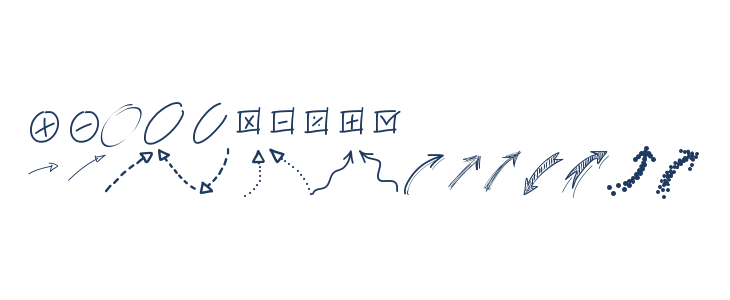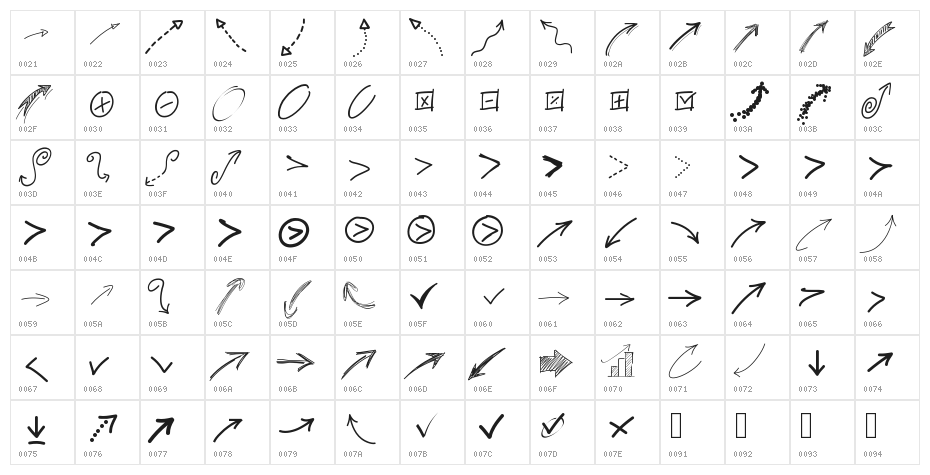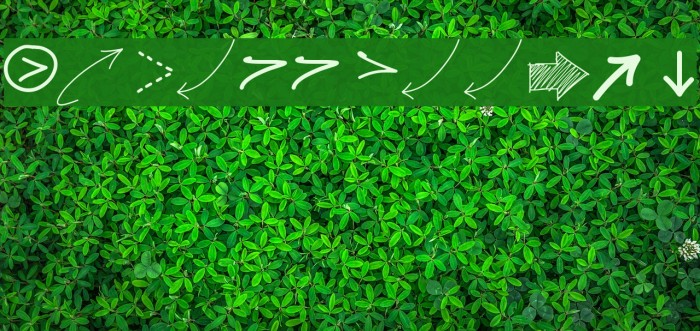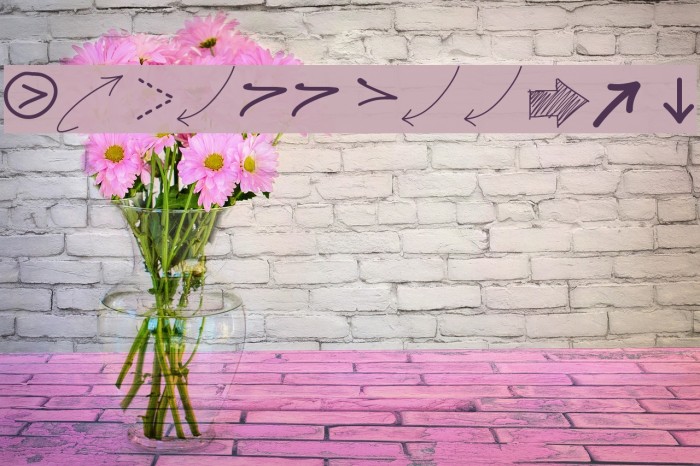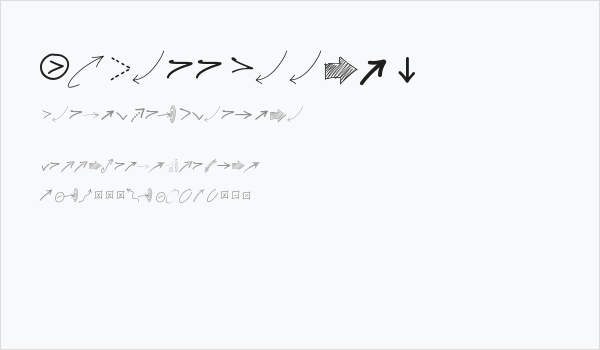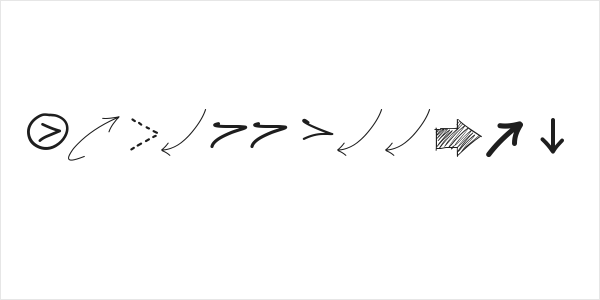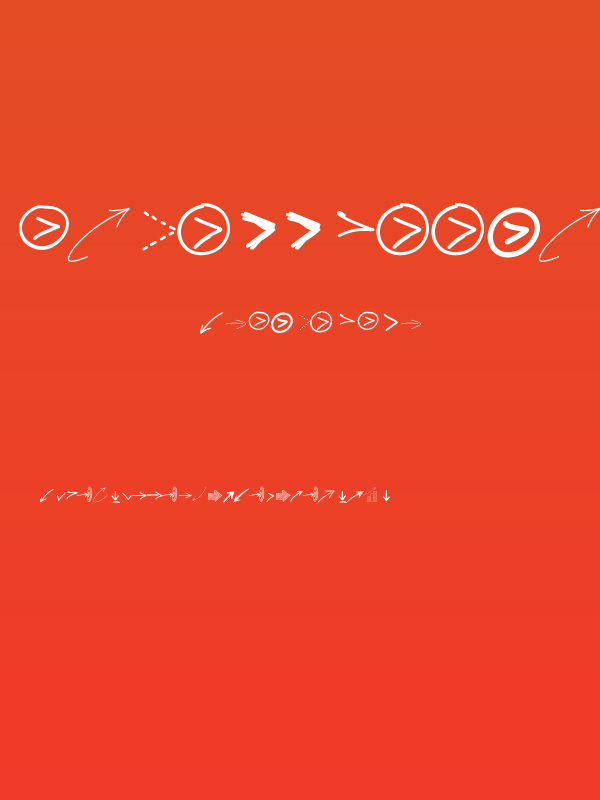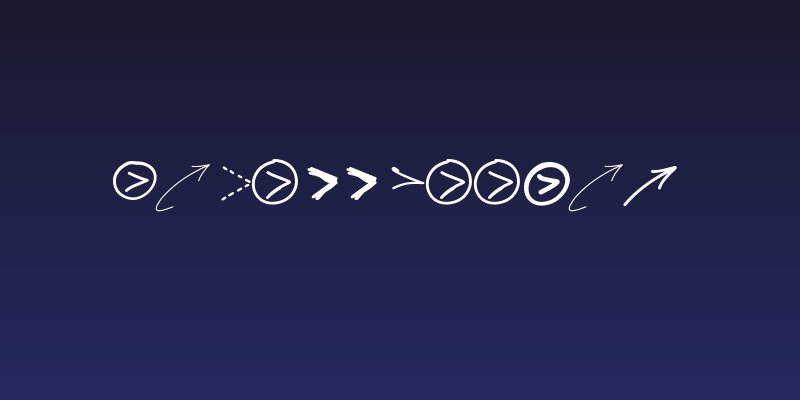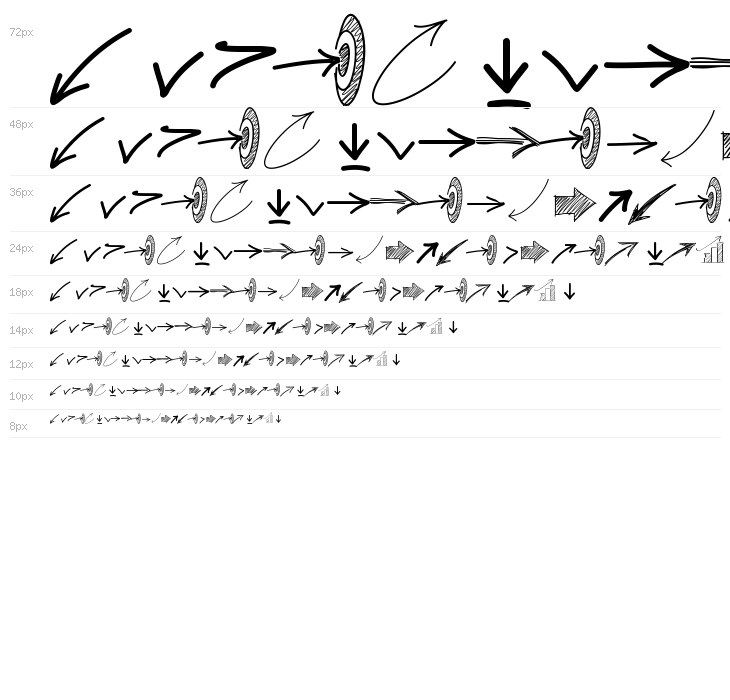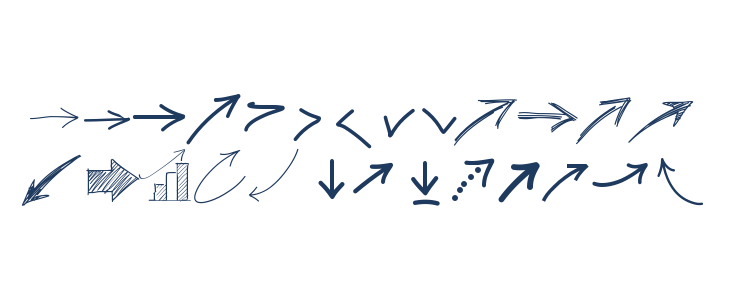
PWFreeArrows Font
PWFreeArrows Description
A playful, hand-drawn dingbat set featuring a wide variety of arrows, circles, checkmarks, and chart icons, all rendered in a loose, sketchy style that mimics marker or pen on paper. The glyphs vary in thickness and form, with some filled, some outlined, and others dashed or dotted, evoking a casual, informal feel.
| Overall Style | Decorative, Handwritten, Playful |
| Use Case | Icons, Visual accents, Diagrams, Informal notes |
| Proposed Projects | Presentations, infographics, educational materials, creative posters, digital whiteboards, and informal design projects. |